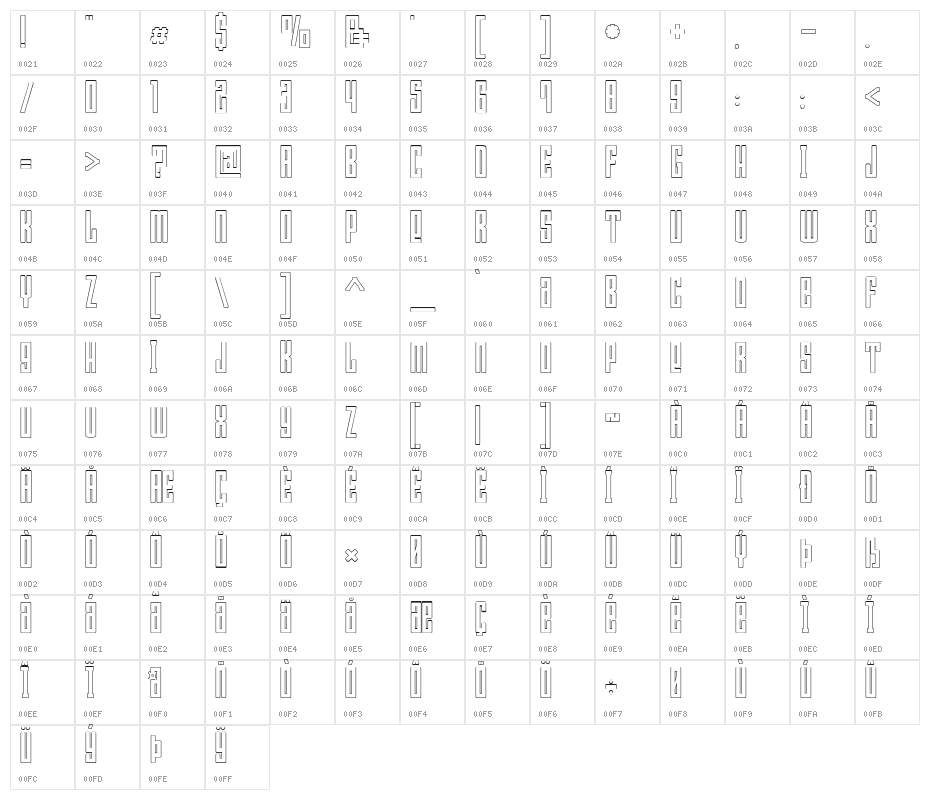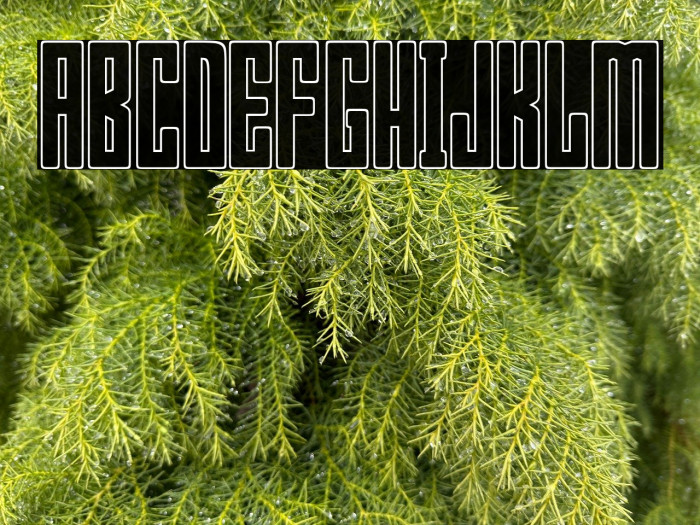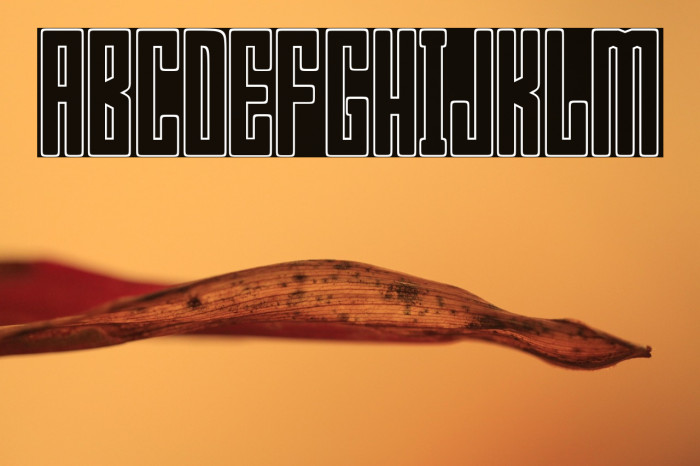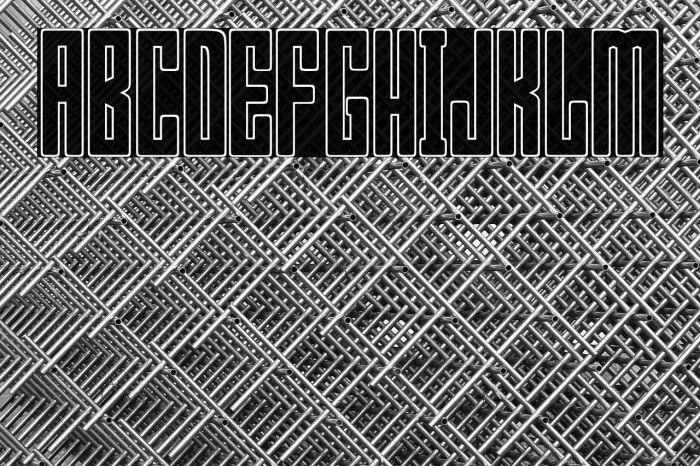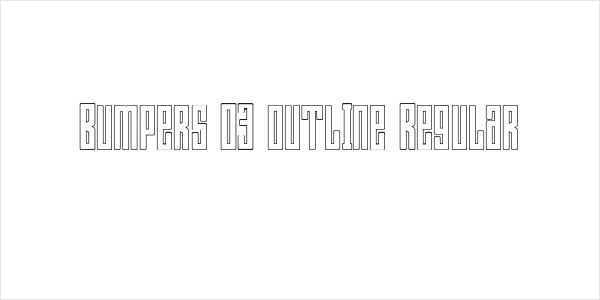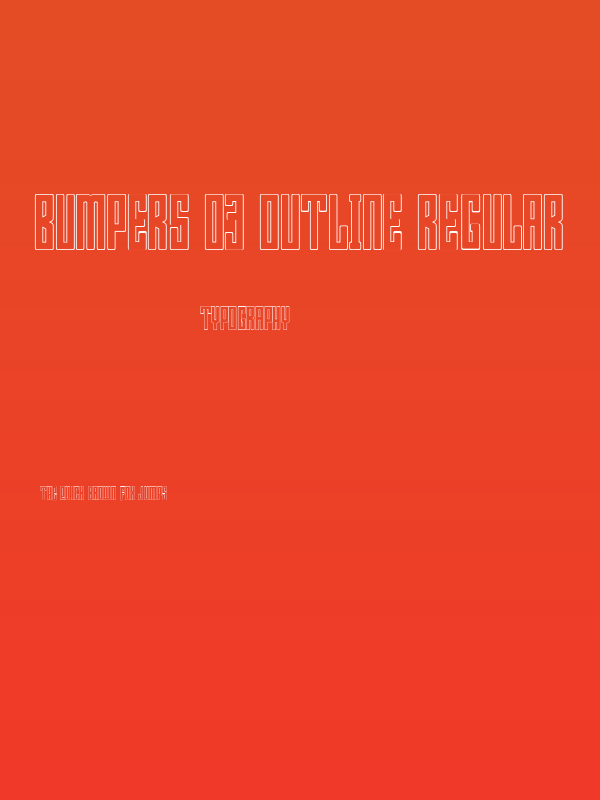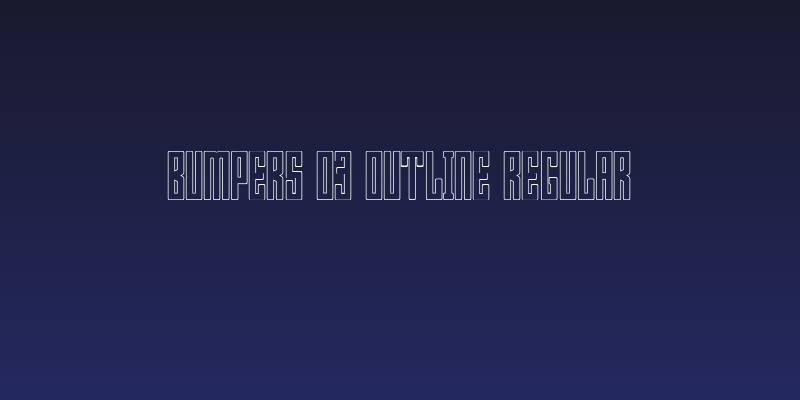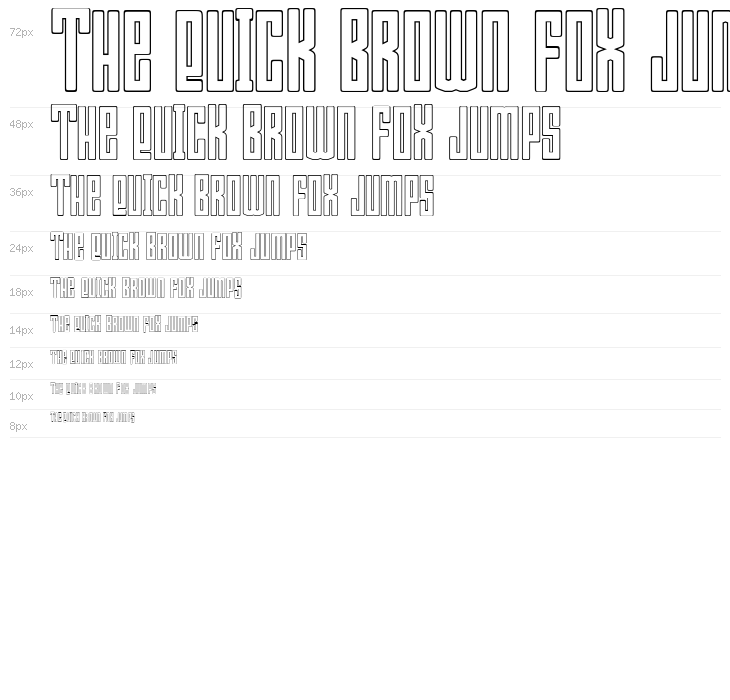
Bumpers 03 outline Regular Font
Bumpers 03 outline Regular Description
This font features a bold, geometric design with an outline style that gives it a modern and futuristic appearance. The characters are tall and narrow, with consistent stroke widths that create a uniform look across all letters and numbers. The uppercase and lowercase letters maintain a similar height, enhancing the font's cohesive style. The numbers and special characters are designed to match the overall aesthetic, making them easily integrated into various design projects. The outline effect adds a unique touch, making it suitable for eye-catching displays and creative uses.
| Proposed Projects | Ideal for posters, logos, headlines, and any design requiring a modern, standout font. |